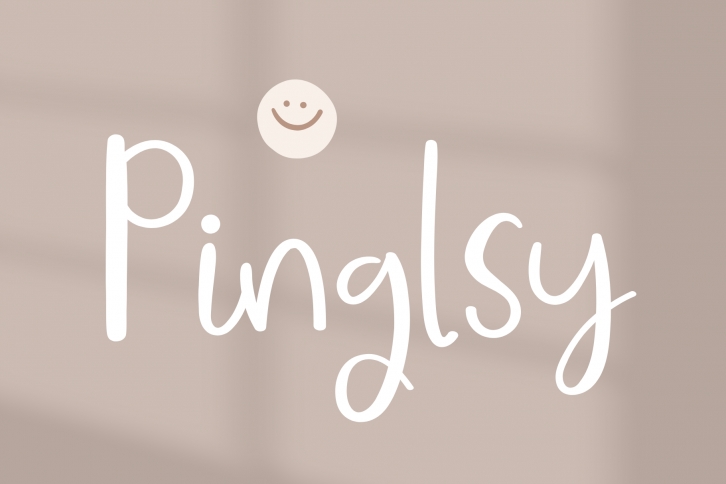
Add some sweetness to your designs with this adorable cute font! It’s perfect for any project that needs a touch of whimsy and charm. From greeting cards and invitations to social media graphics and branding materials, our cute font will bring a playful energy to your work. With its playful curves and delightful details, this font is sure to make your designs stand out. So don’t wait any longer – try our cute font today and add some cuteness to your design projects!